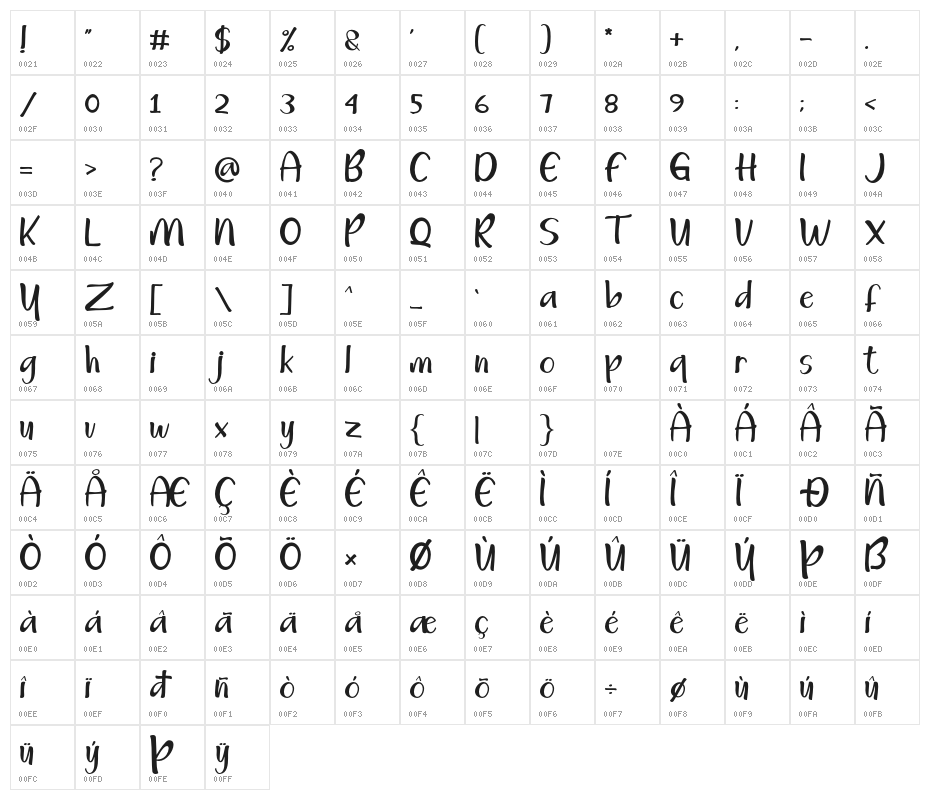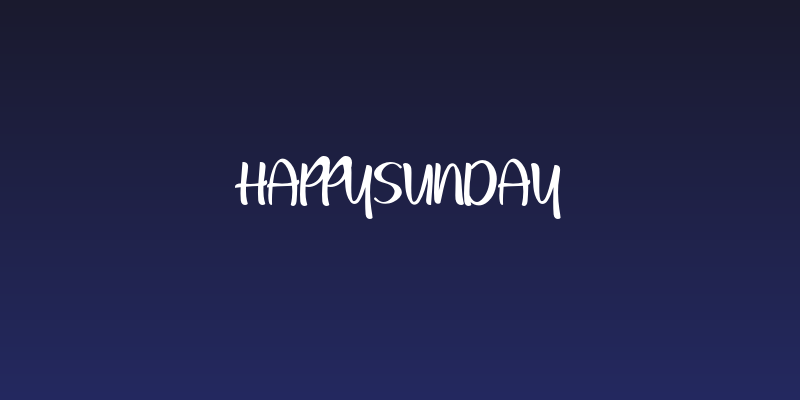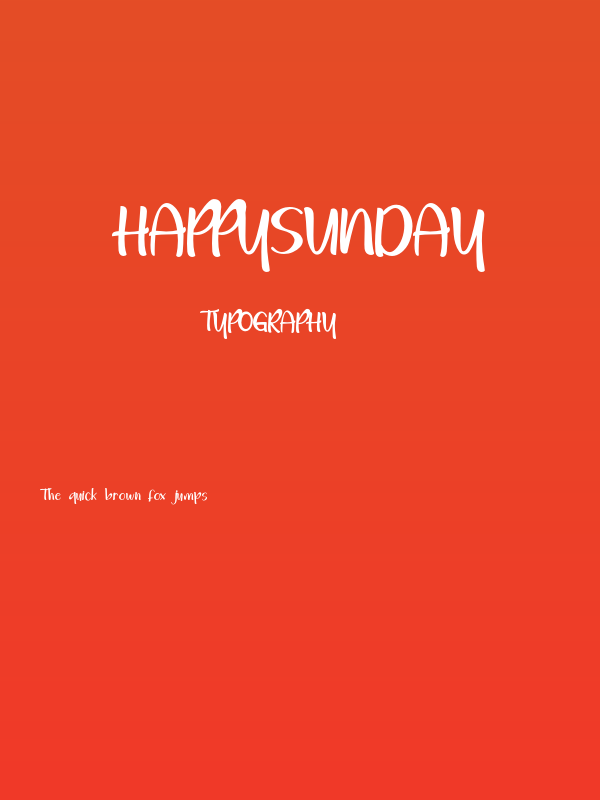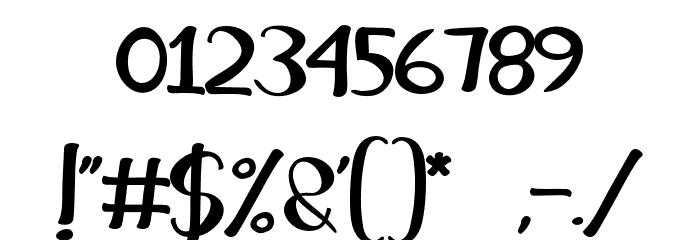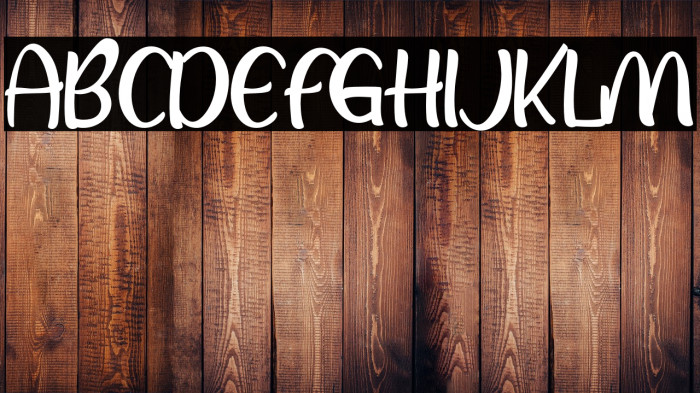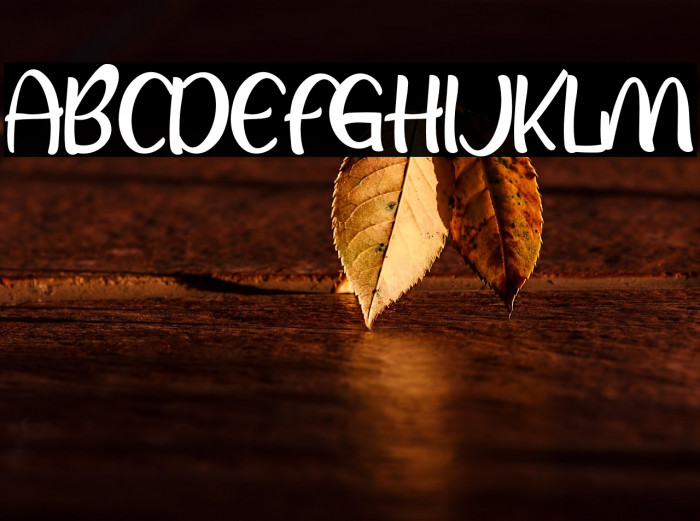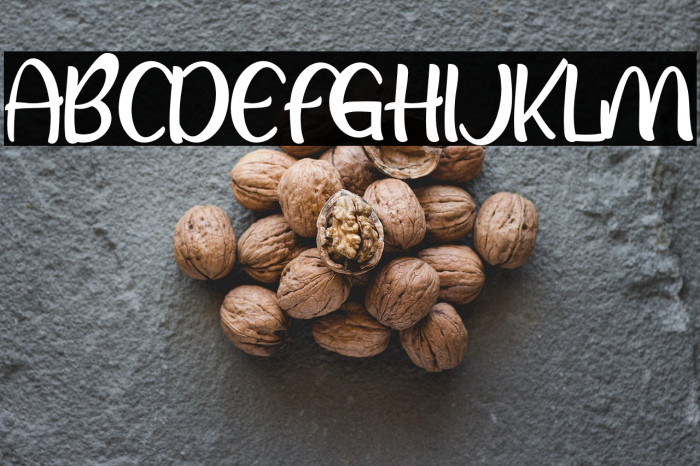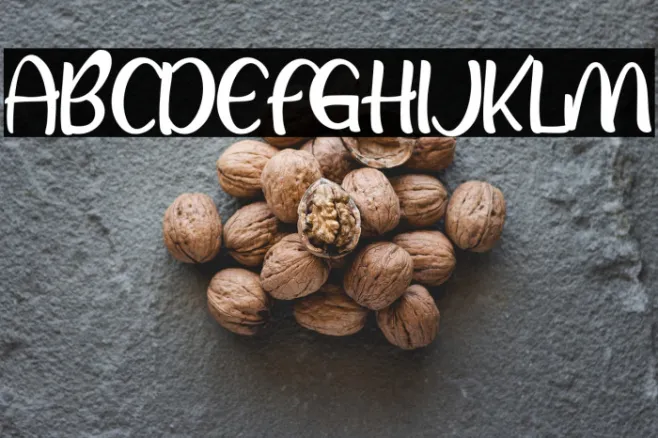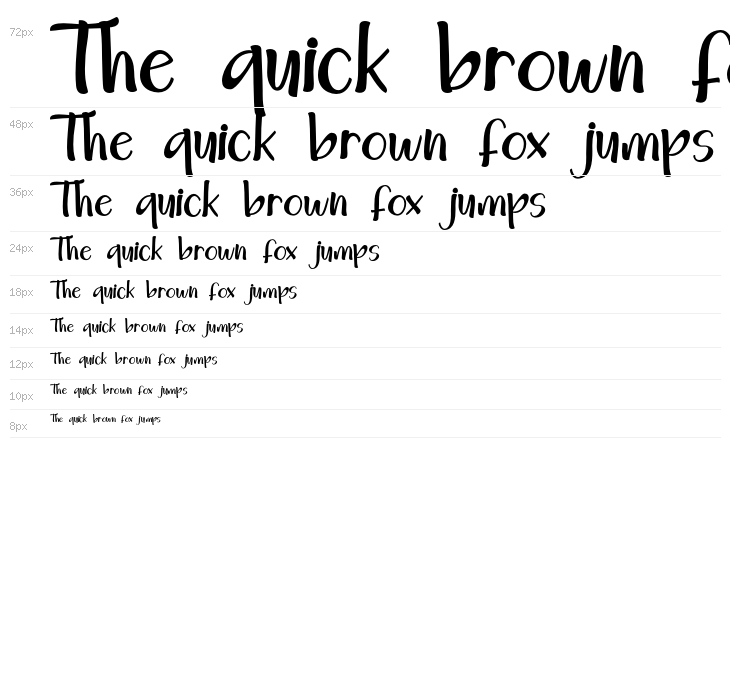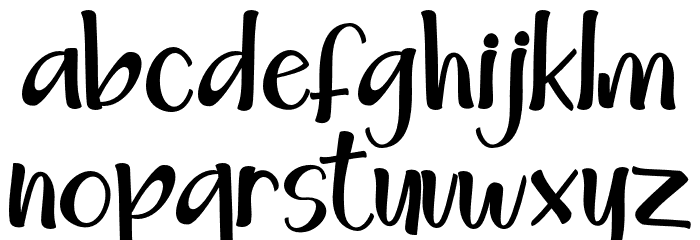
HappySunday Font
HappySunday Description
This font features a playful and casual handwritten style, characterized by its smooth, flowing curves and slightly irregular letterforms. The uppercase letters are bold and prominent, while the lowercase letters maintain a consistent, friendly appearance. The numerals are clear and easy to read, matching the overall aesthetic of the letters. Special characters are well-integrated, maintaining the same playful and informal feel. The font's design is versatile, making it suitable for a variety of creative projects that require a personal touch.
| Proposed Projects | Ideal for greeting cards, invitations, personal branding, social media graphics, and children's book covers. |